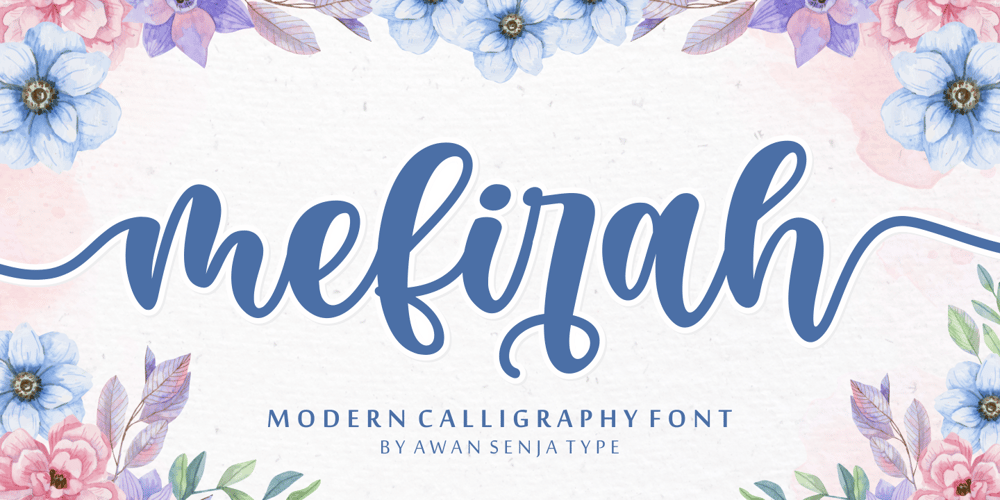
Mefirah Font Family was designed by Riyadh Abuhafs and published by Awan Senja. Mefirah contains 1 styles and family package options. Mefirah is a cute and casual handwritten font with an incredibly friendly feel. It features gorgeous swashes and ligatures that make this script incredibly versatile.This font is PUA encoded which means you can access all of the cute glyphs and swashes with ease! It also features a wealth of special features including alternate glyphs and ligatures.